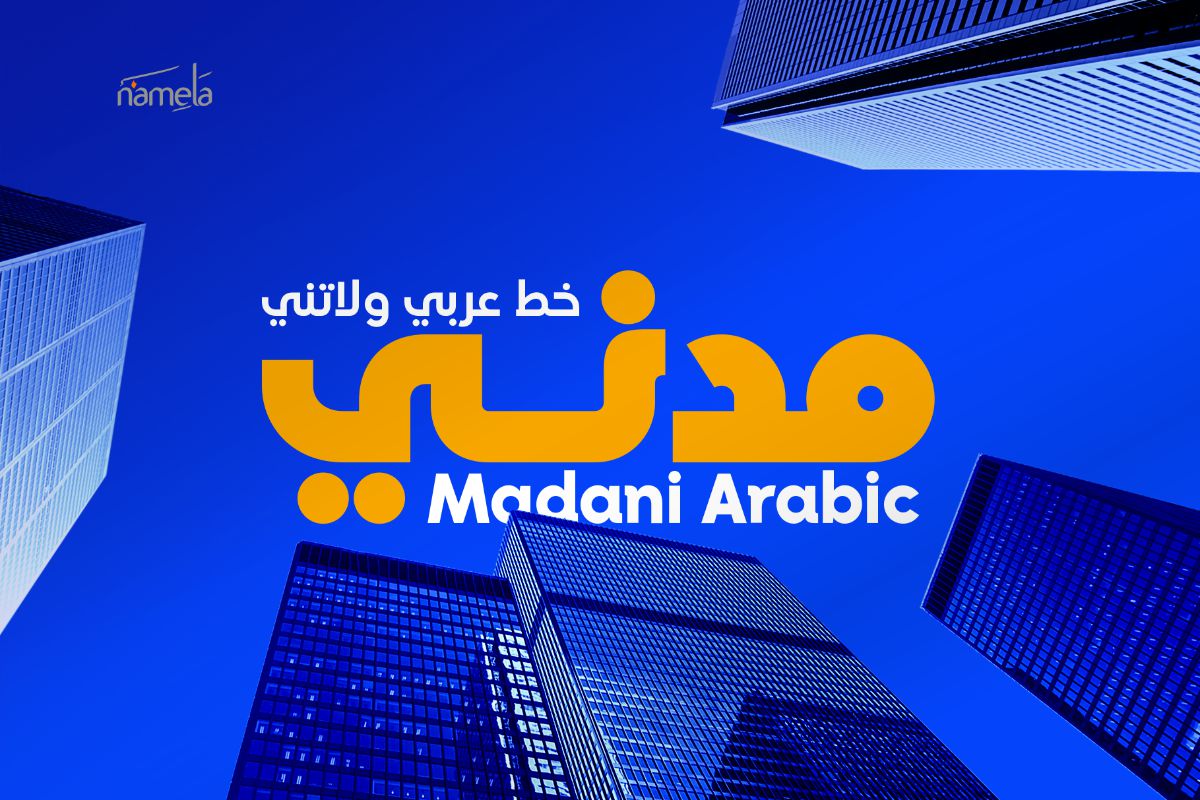
Madani Arabic Medium
Madani Arabic Font - A Clean Geometric Sans-Serif Typeface for Branding & ePub Modern Arabic typography has long struggled to match the versatility of its Latin counterparts, but Madani Arabic changes that. A clean, geometric sans-serif typeface built for professional branding and multilingual publishing, Madani Arabic brings structure, clarity, and cultural fluency to Arabic script design. For brands and publishers that need their Arabic typography to feel as polished and contemporary as thei